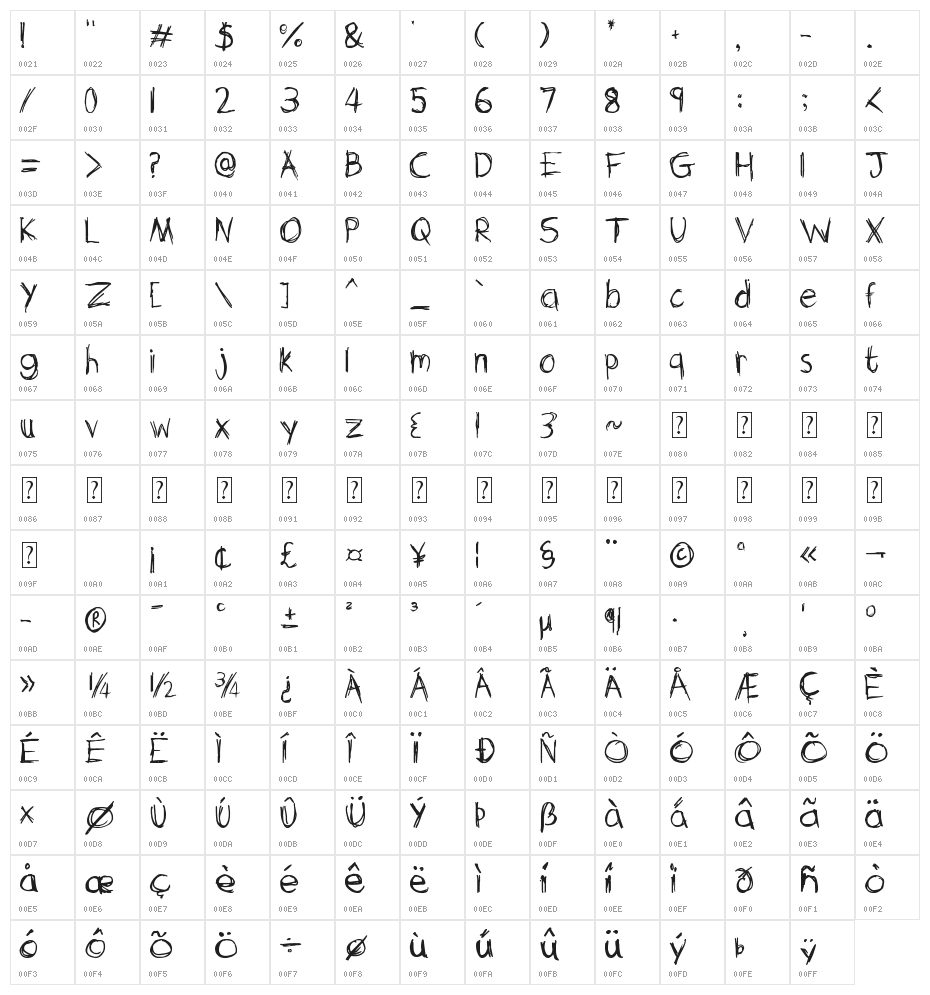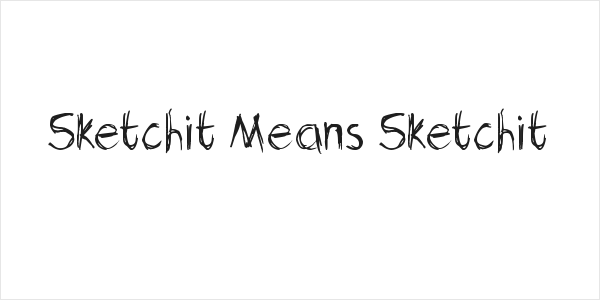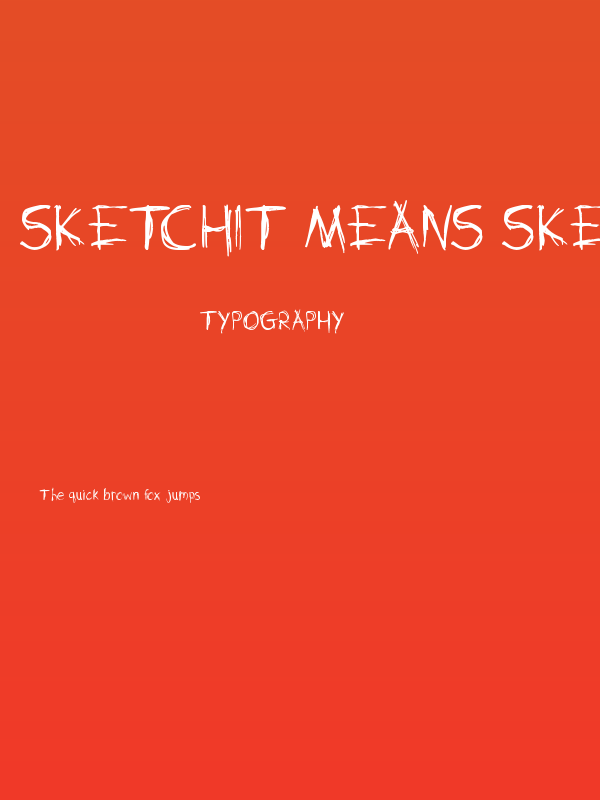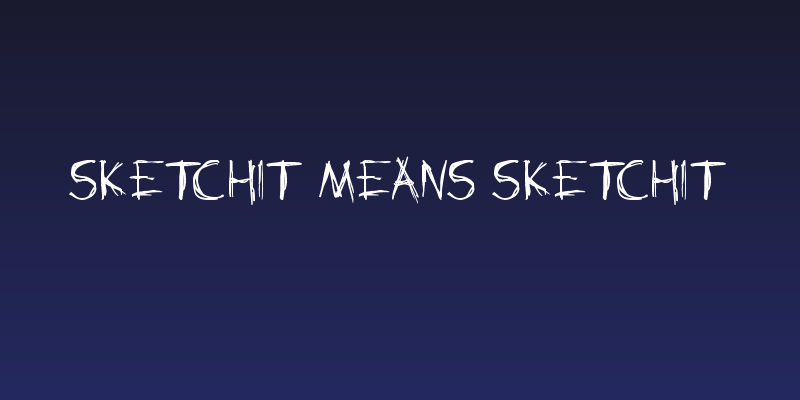
Sketchit Means Sketchit Font
Sketchit Means Sketchit Description
This font exudes a raw, hand-drawn aesthetic, characterized by its sketch-like appearance. The strokes are uneven and jagged, giving it a dynamic and energetic feel. Each character appears as if it has been hastily drawn with a marker, adding a sense of urgency and spontaneity. The uppercase and lowercase letters maintain a consistent style, with the uppercase being slightly more elongated. Numbers and special characters follow the same sketchy style, ensuring a cohesive look across all text. The overall impression is one of creativity and informality, making it ideal for projects that require a personal touch.
| Use Case | Headlines, Logos, Artistic projects |
| Proposed Projects | Ideal for artistic projects, informal invitations, comic book lettering, and creative branding. |